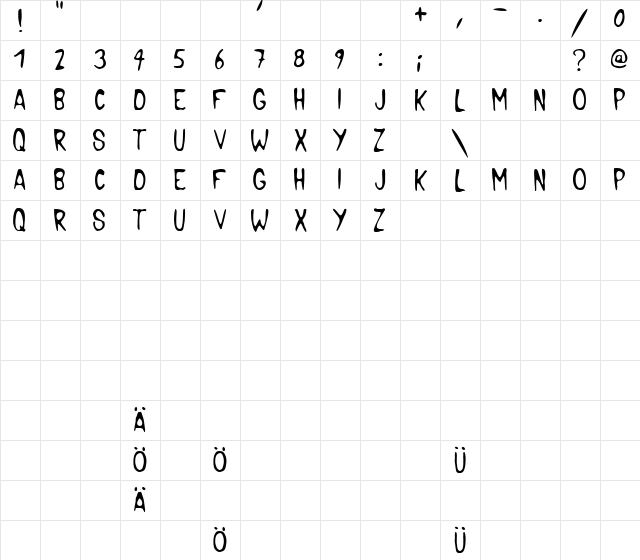
Pocket Monster Regular Free Font
Pocket Monster Regular
Complete Pocket Monster Regular glyph index. Displaying only characters natively supported by Pocket Monster Regular font.
Design Context for Pocket Monster
Pocket Monster is a composed and adaptable typeface that performs quietly and consistently across a wide range of design contexts.